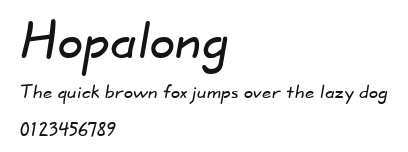
• Font Name: Hopalong
• Full Font Name: Hopalong Bold
About Hopalong.ttf
Hopalong.ttf is a modern, elegant sans-serif font designed for ultimate readability and visual harmony. Perfect for branding, headlines, web design, and print materials.